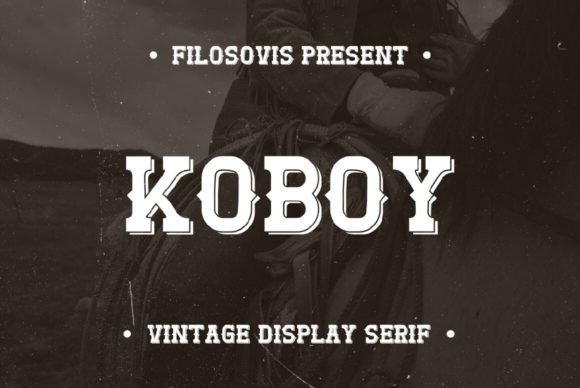
Introducing the extraordinary Koboy Font, your ultimate solution for captivating vintage and old-school designs! Created by the talented team at filosovis.co, this slab serif font is all about making a bold statement with its strong lined appearance and cowboy-style design.
Are you ready to transport your audience back in time? With Koboy Font, you can effortlessly elevate your projects to new heights of creativity. Its unique and eye-catching features make it the best font for Hebrew text, adding a touch of elegance and authenticity to any design.
But Koboy Font isn't just limited to Hebrew text – it's a versatile powerhouse that can be used for a wide range of purposes. Whether you're designing vintage logos, mugs, embroidery, prints, displays, or even packaging, this font will bring an instant charm and nostalgia to your creations.
Imagine the impact of using Koboy Font on your greeting cards or emblems. The bold and strong lined letters will grab attention and leave a lasting impression on anyone who sees them. Let your signage stand out from the crowd, drawing customers in with its captivating and timeless appeal.
With Koboy Font, the possibilities are endless. Its captivating design and nostalgic vibe will transport your audience to a bygone era, evoking emotions of warmth, authenticity, and adventure. Say goodbye to ordinary and hello to extraordinary with this remarkable font.